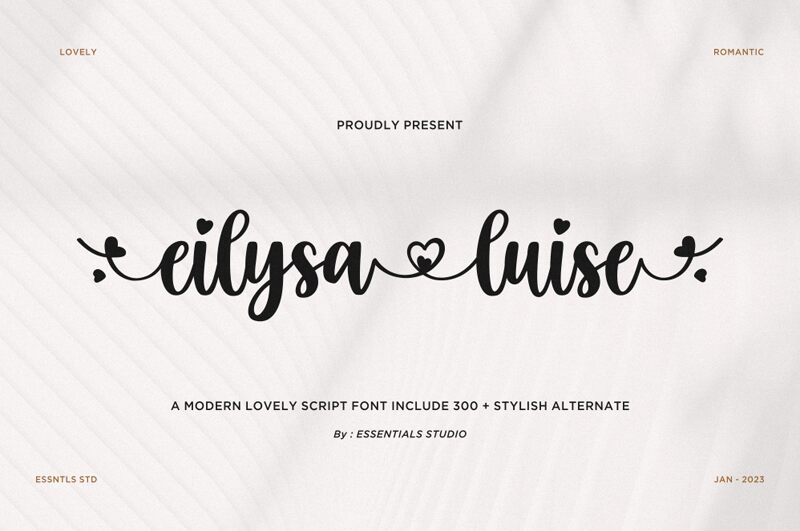
Eilysa Luise font by Essentials Studio is a romantic and whimsical handwritten font with an artistic flair. The decorative and playful letters are suitable in creative designs that need a light and elegant handwritten effect. Overall, the font has an impressive visual impact where all the elements play in harmony together.
Use Eilysa Luise to customize invitation cards, business cards, greeting cards, Magazines or simply for any mockup purpose. It is perfect for quotes design inspirational message ideas among other print or web designs. The free font can be also used as signage or on packaging products like tea boxes and wrapping paper, etc..